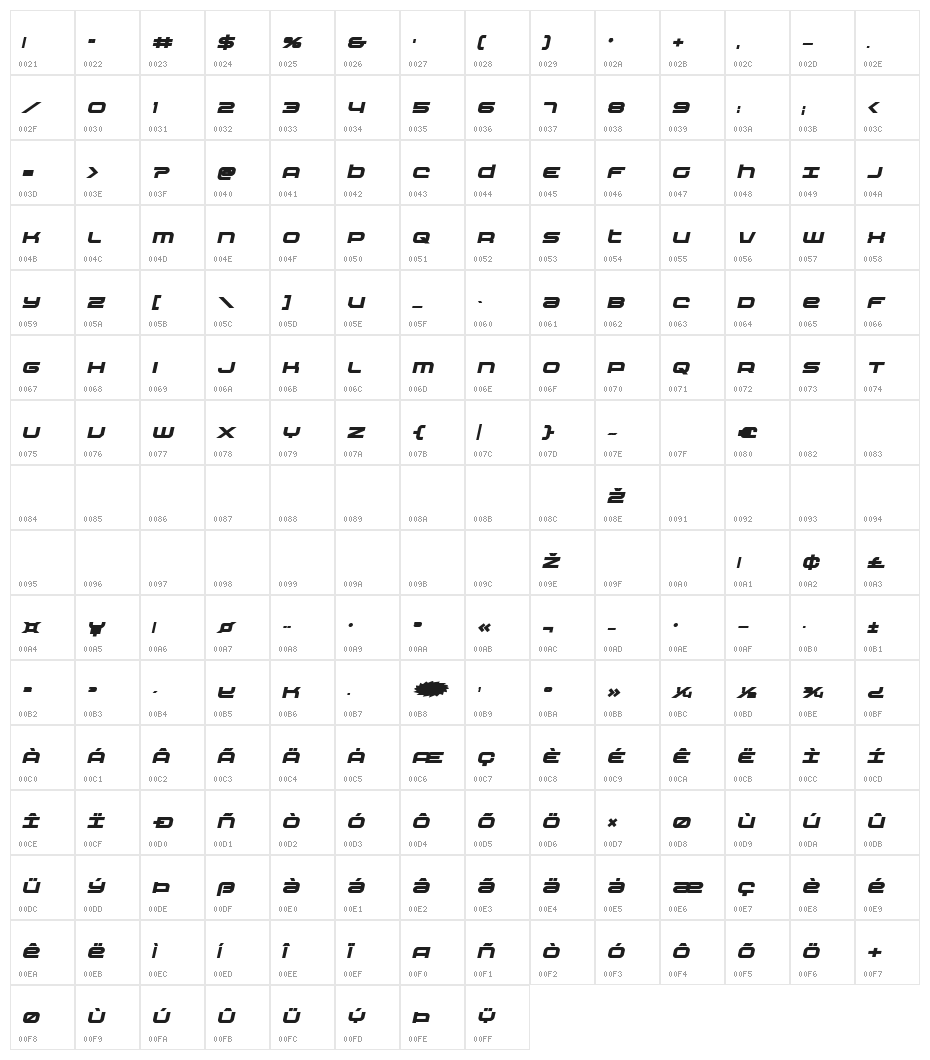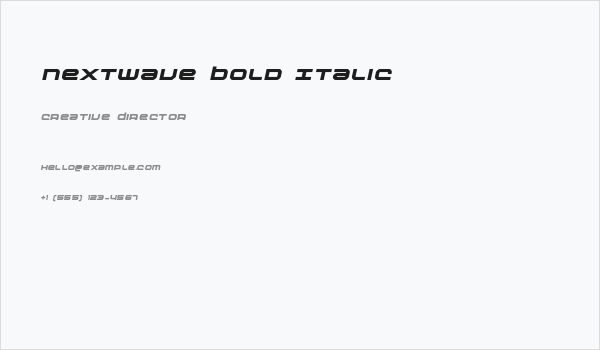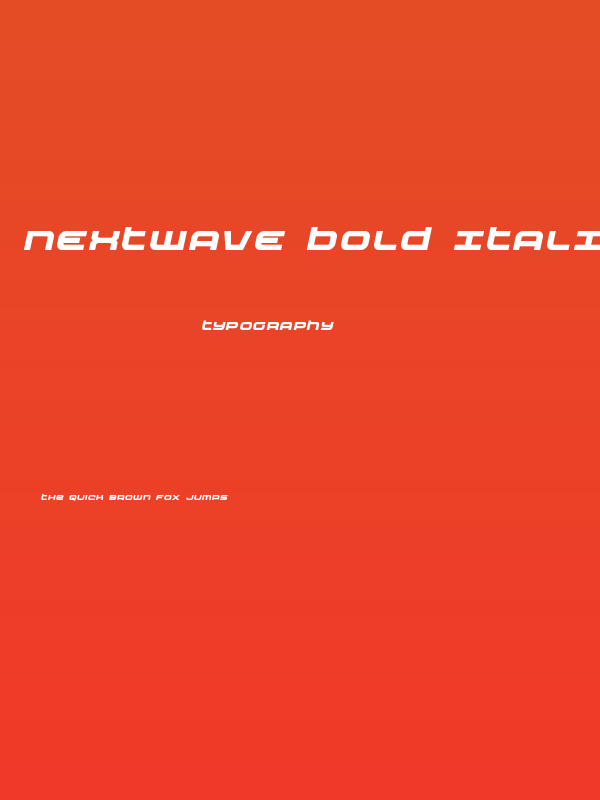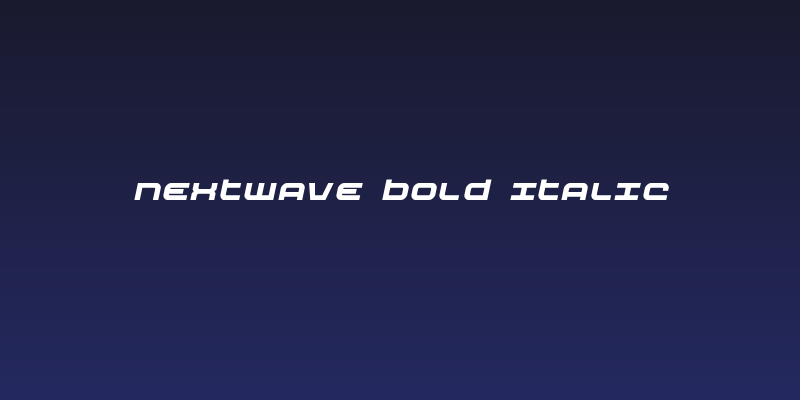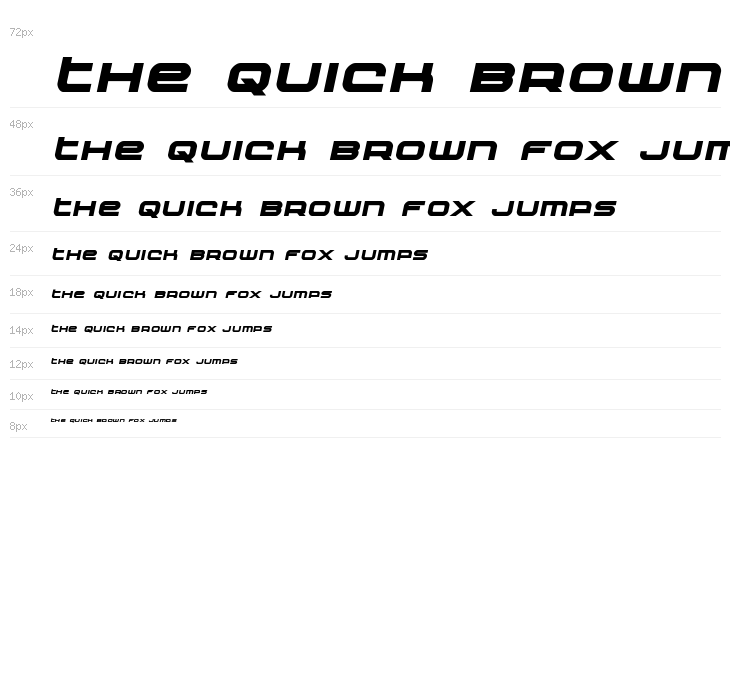
Nextwave Bold Italic Font
Nextwave Bold Italic Description
This font features a bold and italicized style with a futuristic and dynamic appearance. The characters are slightly slanted, giving a sense of motion and speed. The strokes are thick and consistent, providing a strong visual impact. The design is clean and modern, with a geometric influence that enhances its contemporary feel. The spacing between characters is normal, ensuring readability while maintaining its bold presence. This font is well-suited for projects that require a modern and energetic look.
Overall StyleFuturistic, Dynamic
Use CaseLogos, Headlines, Branding
Proposed ProjectsIdeal for technology branding, sports team logos, video game titles, and modern advertising campaigns.